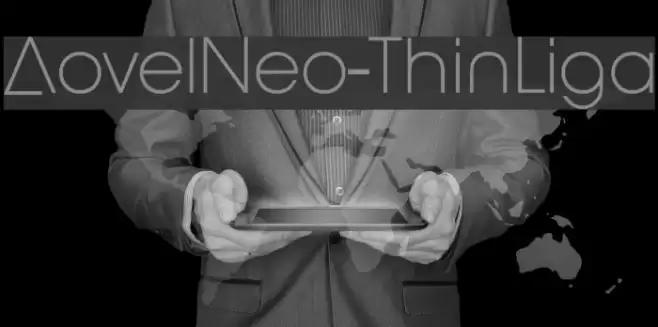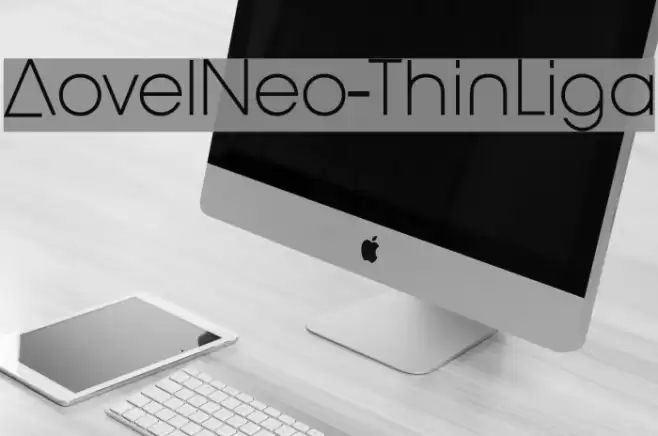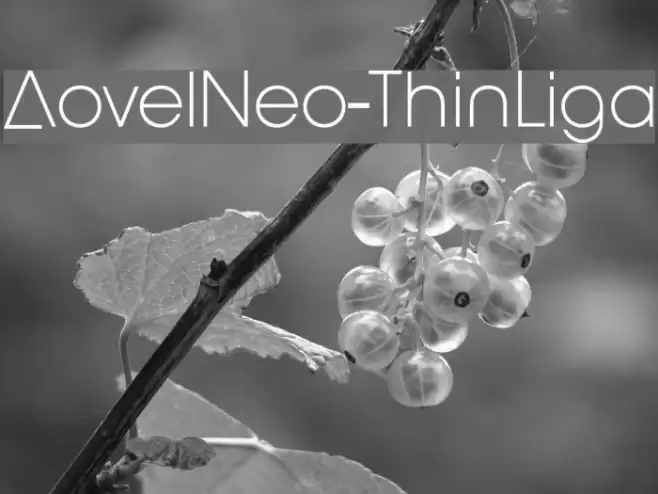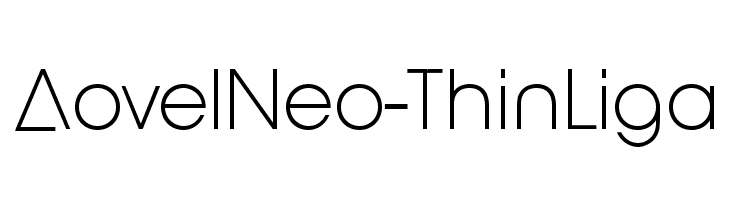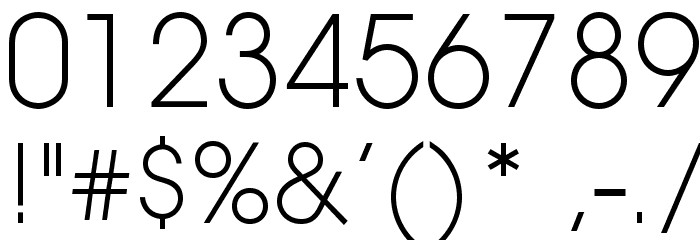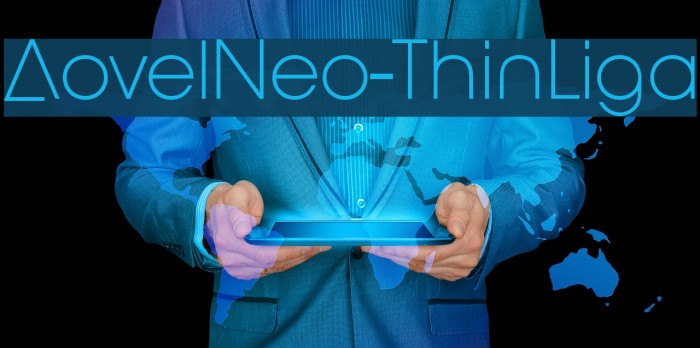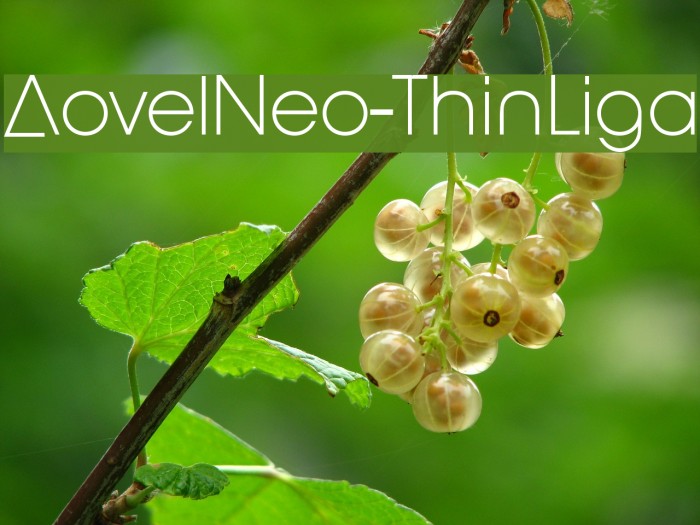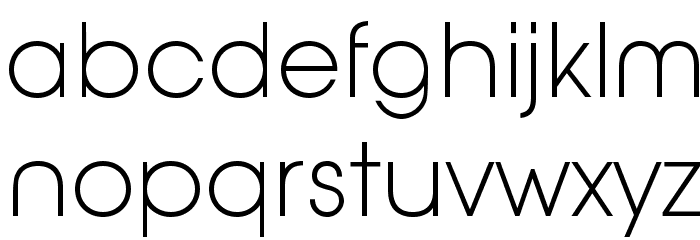
AovelNeo-ThinLiga Font
AovelNeo-ThinLiga Description
This font exhibits a clean and modern sans-serif style with a geometric influence. The characters are evenly spaced, providing a balanced and harmonious appearance. The uppercase letters are bold and striking, while the lowercase letters maintain a consistent and smooth flow. The numerals are clear and legible, making them suitable for various applications. Special characters are well-integrated, enhancing the font's versatility. The overall design is sleek and minimalistic, ideal for contemporary projects.
A modern, geometric sans-serif font with clean lines and balanced spacing from Uncategorized fonts.
- Proposed Projects: Ideal for branding, advertising, web design, and editorial layouts where a modern and clean aesthetic is desired.